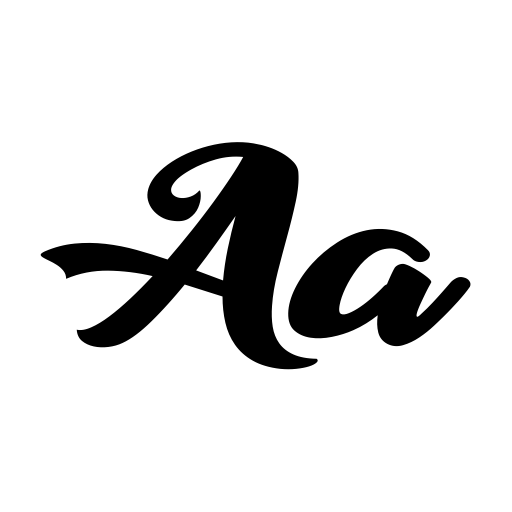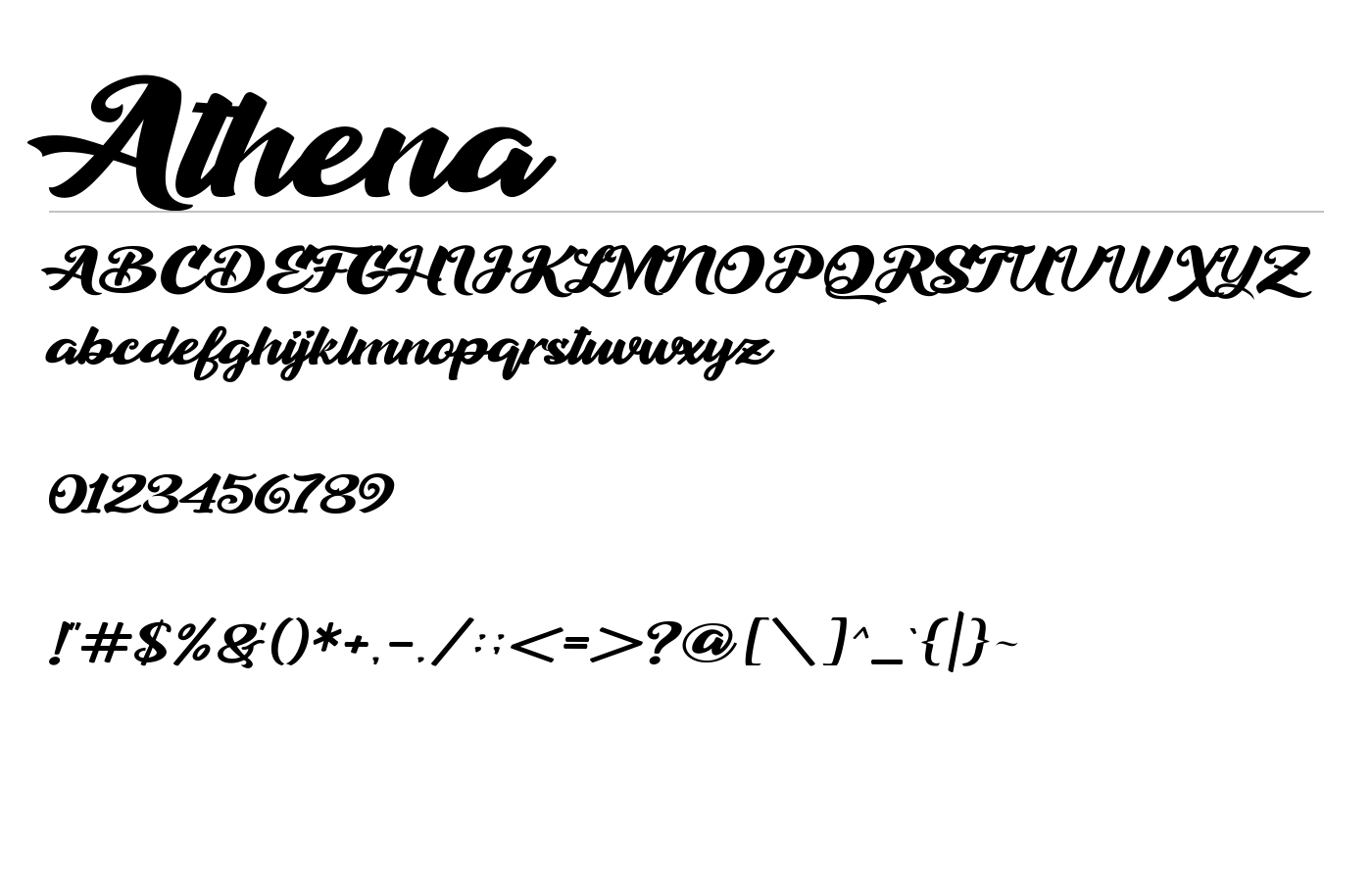
Athena is a bold, script-style font with smooth, flowing strokes that combine elegance and a touch of vintage charm. Its connected letterforms and moderate contrast make it ideal for eye-catching headlines, logos, and branding that seek a sophisticated yet approachable personality. This font works especially well in fashion and lifestyle contexts where a stylish and expressive look is desired.
Athena Font
About Athena Font